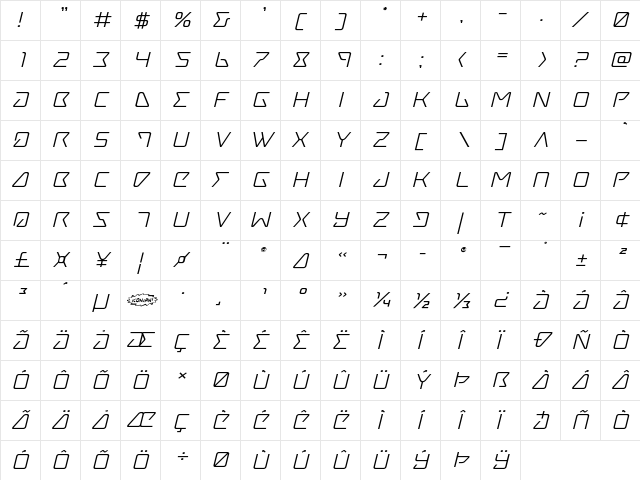
Tracer Expanded Italic Expanded Italic
Design Context for Tracer Expanded Italic Typeface
Tracer Expanded Italic is a composed and adaptable typeface that performs quietly and consistently across a wide range of design contexts. Its italic angle brings a sense of urgency and motion to the letterforms.
Pro Tip: Try Tracer Expanded Italic for annotation and caption copy alongside an upright companion — the contrast in angle creates a dynamic but ordered typographic system.